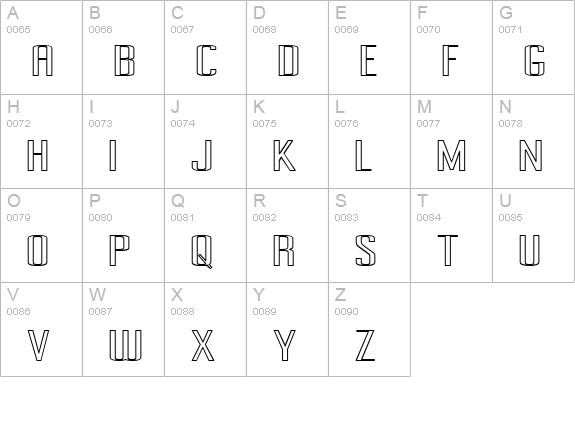
Pecot Outline font is a stunning display font that is perfect for adding a touch of elegance and sophistication to any design project. Its bold yet delicate outlines make it versatile and suitable for a wide range of applications, from logos and branding to posters and headlines. This unique font features clean lines and sharp edges, giving it a modern and contemporary feel. Its distinct outline style adds an element of creativity and visual interest, making it stand out from the crowd. Whether used in print or digital media, Pecot Outline font is sure to leave a lasting impression. One of the best things about Pecot Outline font is that it is free! That's right, this incredible font is freely available to download at FontsMarket.com. This means that you can use it in your personal and commercial projects without any restrictions. It's a great opportunity to enhance your designs without having to worry about licensing fees or limitations. With Pecot Outline font, you can easily create eye-catching typography that captures attention and conveys your message effectively. Its versatility allows you to experiment with different styles and layouts, ensuring that your design stands out from the rest. So why wait? Download Pecot Outline font today from FontsMarket.com and start unleashing your creativity. Enjoy the freedom to create stunning designs without any cost or limitations. With Pecot Outline font, your projects will be elevated to a whole new level of excellence.